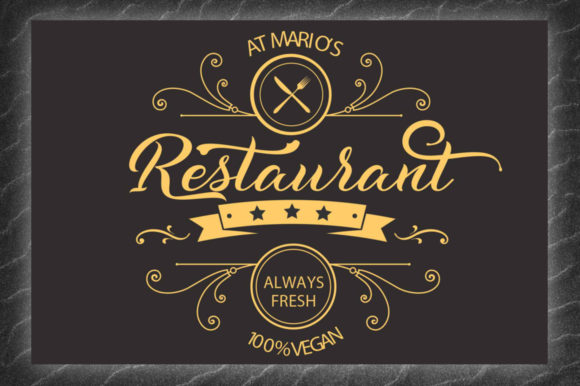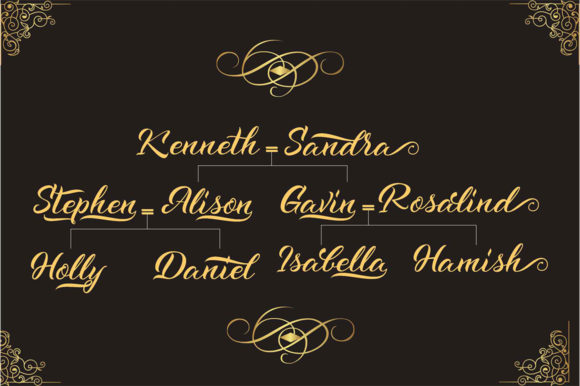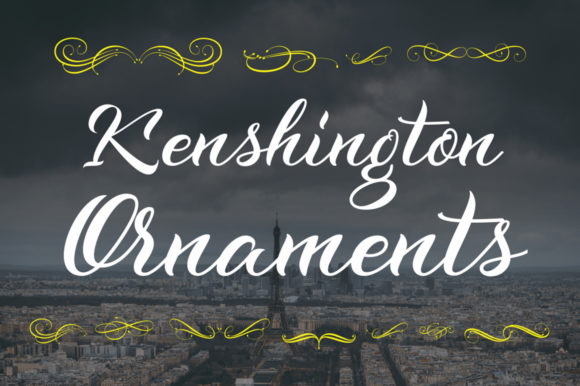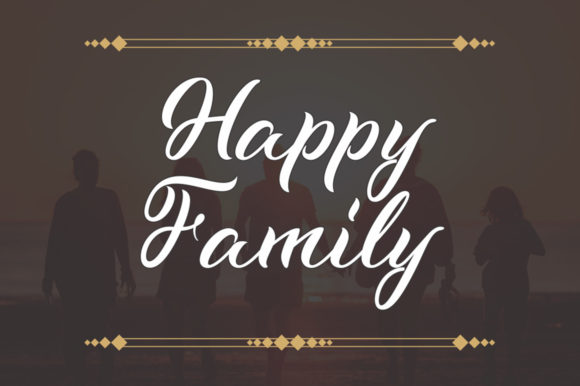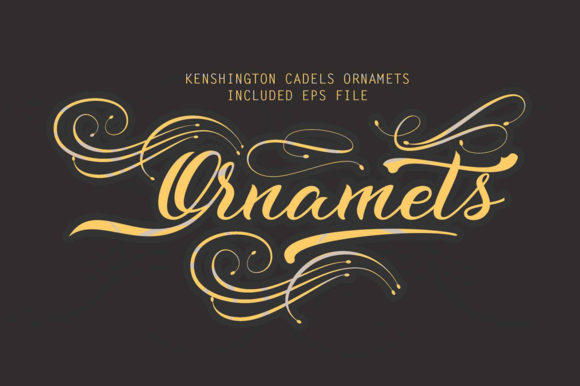
Introduction to Kenshington Font
Have you ever been stuck on a creative project, searching for the perfect font to elevate your design and make it truly shine? You know the feeling – the one where you’ve poured your heart and soul into a project, but something’s just missing. For designers, finding the right font can be the difference between a good design and a great one.
That’s where the Kenshington Font comes in – a stunning, elegant script font that’s sure to take your projects to the next level. With its delicate, classy look and perfect balance of thickness, this font is a valuable resource for any designer looking to add a touch of sophistication to their work.
Whether you’re working on a free download or a high-end commercial project, the Kenshington Font is a must-have design resource. And with its PUA encoded feature, you’ll have access to all the glyphs and swashes you need to create stunning designs with a transparent background.
Key Features of Kenshington Font
- High-quality design resource perfect for creative projects, offering a unique and elegant style.
- Transparent background, allowing for easy customization and integration with different design elements.
- Designed with precision and attention to detail, making it ideal for use in logos, branding, and typography-based projects.
- Comes with a comprehensive character set, including uppercase and lowercase letters, numbers, and special characters.
Honest Review: Kenshington Font
As a designer, I’m always on the lookout for high-quality fonts to elevate my creative projects. The Kenshington Font has been a game-changer for me, offering a unique and stylish design resource that’s perfect for modern branding.
- ✨ The font’s clean and modern design makes it an excellent choice for digital projects, such as websites and mobile apps.
- ✨ The transparent background option allows for seamless integration with any design element.
- ✨ The font’s high quality is evident in its crisp lines and smooth curves, making it a great addition to any design resource library.
- ⚠️ The font’s limited character set may be a drawback for some designers, particularly those working on complex projects.
- ⚠️ Some users may find the font’s bold lines and sharp angles too striking, making it less suitable for more subtle design projects.
Overall, I’m impressed with the Kenshington Font’s performance in my creative projects. Its unique design and high quality make it a valuable addition to any design resource library. While it may have some limitations, I believe its benefits far outweigh its drawbacks, making it a must-have font for any modern designer.
Designing with Kenshington Font
When using Kenshington Font, keep in mind that it is a high-quality design resource with a transparent background. This makes it ideal for creative projects where you want to create visually appealing text overlays or graphics. Experiment with different font sizes, colors, and arrangements to get the most out of this versatile font.
Kenshington Font is commonly used in a variety of design contexts, including social media graphics, blog posts, and marketing materials. Its unique style and transparent background make it a popular choice for designers looking to add a touch of elegance to their creative projects.